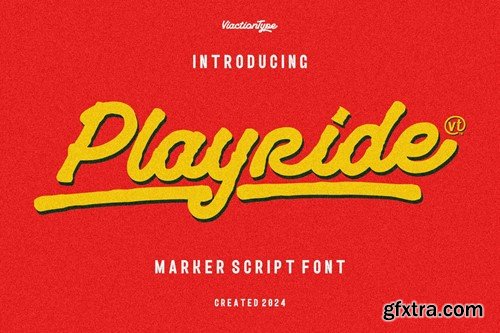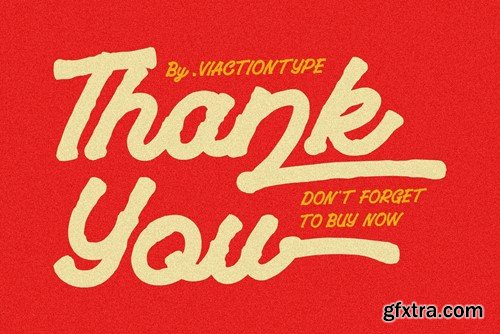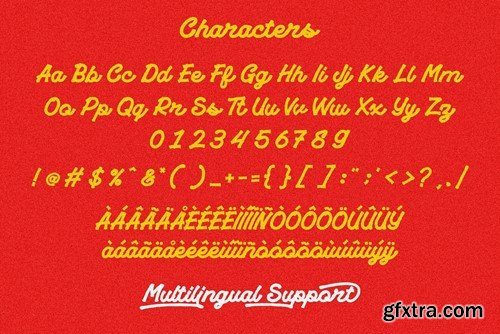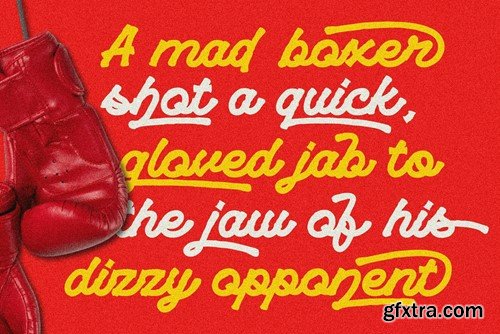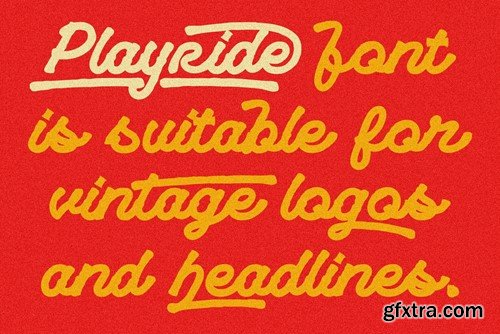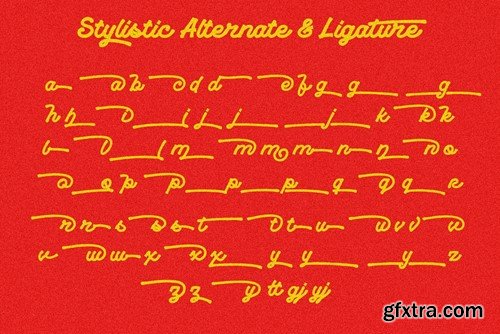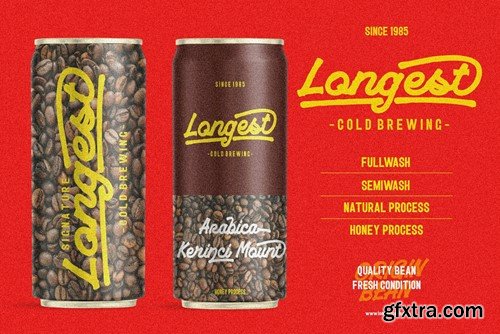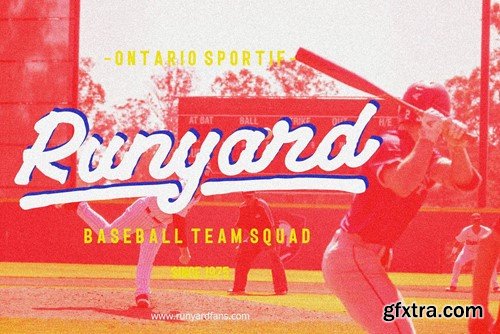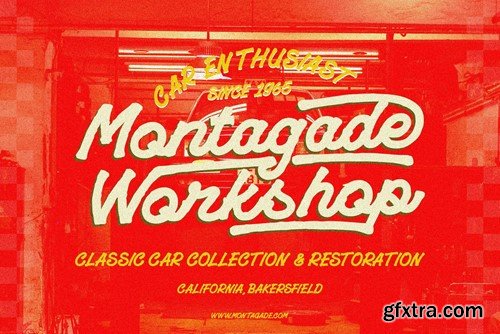
玩 Ride - 雅典体 vintage 字体 5LQFST5
Elevate your creative projects with our exquisite Playride - Vintage Script Font. Crafted with meticulous attention to detail, this font combines nostalgic charm with modern functionality, making it the perfect choice for adding a touch of vintage flair to your designs. Our Playride - Vintage Script Font boasts a timeless appeal, reminiscent of hand-drawn lettering from a bygone era. Its authentic strokes and elegant curves evoke a sense of nostalgia, ideal for enhancing invitations, posters, logos, and more. Whether you're designing for a retro-themed event or seeking to infuse your artwork with character and personality, this font delivers exceptional versatility and style. With its seamless integration into design software and user-friendly interface, incorporating our Playride - Vintage Script Font into your projects is effortless. Its compatibility across various platforms ensures hassle-free usage, allowing you to focus on unleashing your creativity without constraints. Unlock the potential of your designs and captivate your audience with the timeless allure of our Playride - Vintage Script Font. Embrace the charm of yesteryears while embracing the efficiency of modern design tools. Elevate your creations today with this stunning font. Features: File Includes : Transform your designs with the enchanting appeal of our Playride - Vintage Script Font. Explore the possibilities and embark on a journey of creative expression like never before.